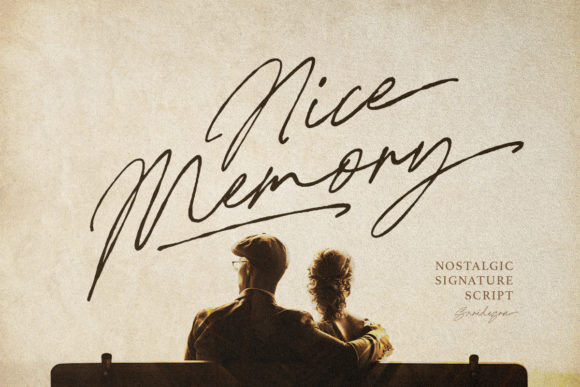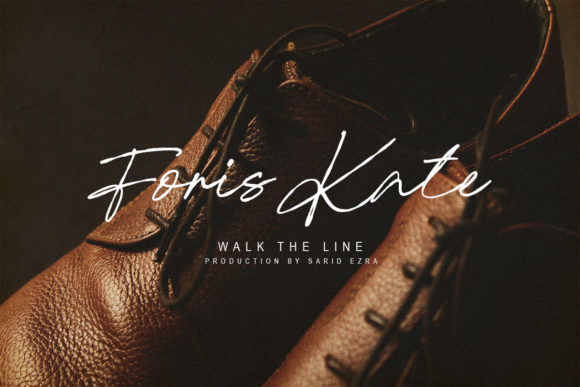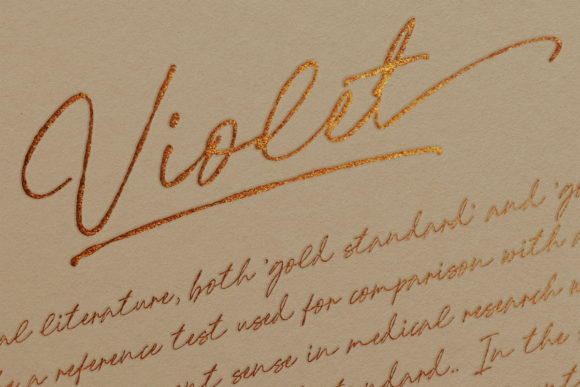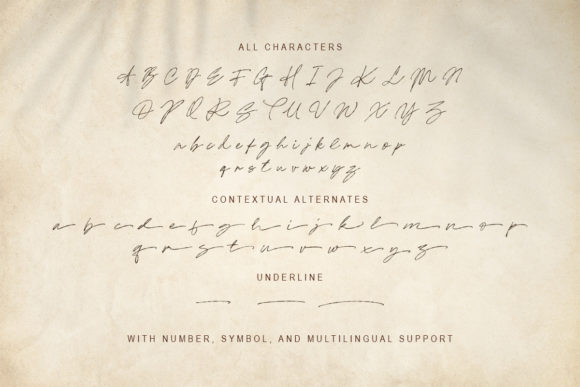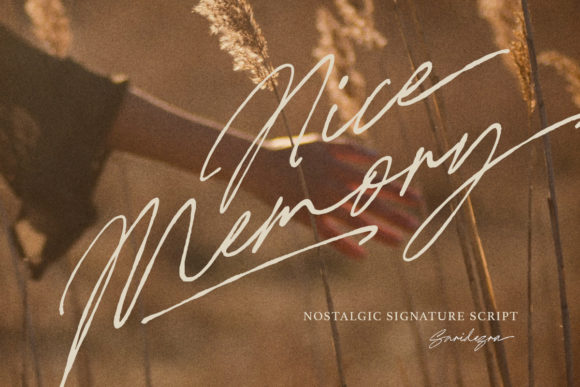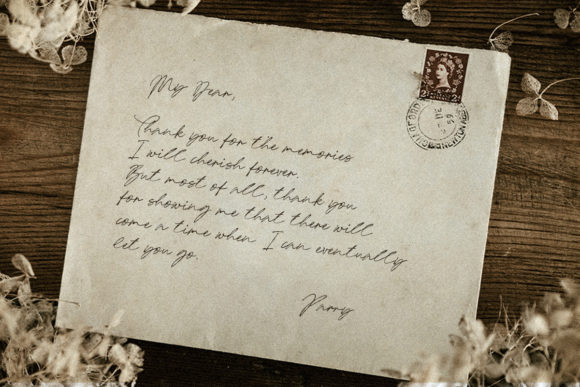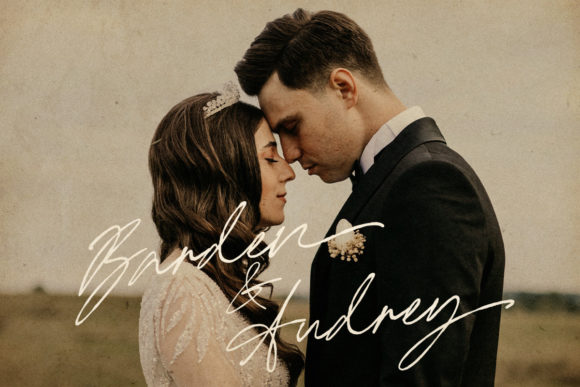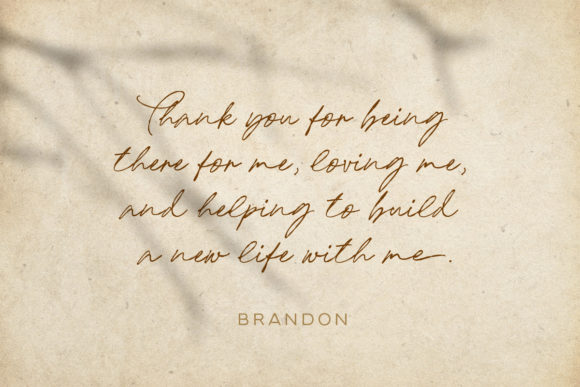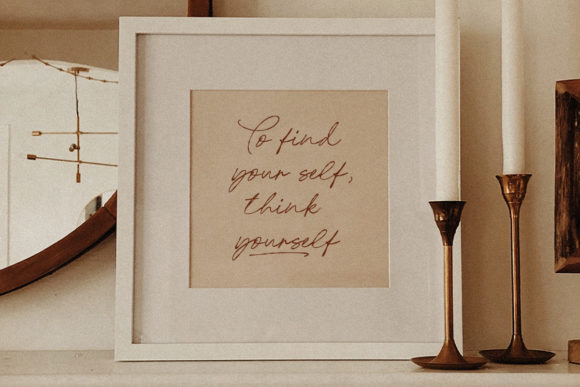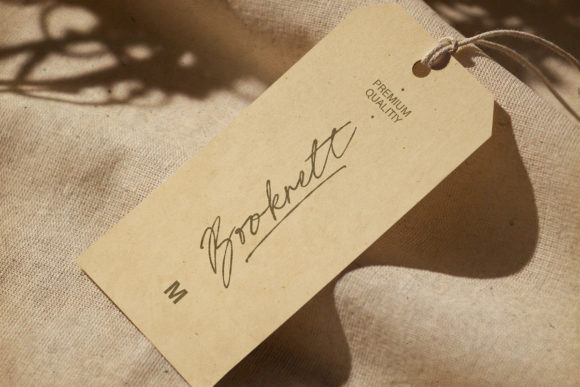
Nice Memory Font
About Nice Memory Font
Nice Memory emerges as a beautiful and refined script font, boasting a classy, elegant, and modern aesthetic. This font serves as a versatile and sophisticated choice, suitable for a wide range of applications including logos, branding, invitations, stationery, wedding designs, social media posts, and beyond.
The font’s inherent beauty lies in its well-crafted script, which exudes a sense of refinement and class. The elegant strokes and modern design elements make Nice Memory a standout choice for projects that demand a touch of sophistication. Whether used for formal occasions or contemporary designs, this font effortlessly adapts, adding a timeless charm to your creations.
Nice Memory’s versatility shines through in its ability to enhance diverse design elements. From logos that leave a lasting impression to invitations that set the tone for special events, this font elevates the visual appeal of any project it graces. Its modern look ensures that it stays relevant and stylish across various design contexts.
In conclusion, Nice Memory transcends being just a font; it becomes a design asset that adds a touch of beauty and refinement to your creative endeavors. Its classy, elegant, and modern characteristics make it a reliable choice for a wide array of applications. Explore the possibilities and let Nice Memory elevate your designs with its timeless charm and sophisticated script.